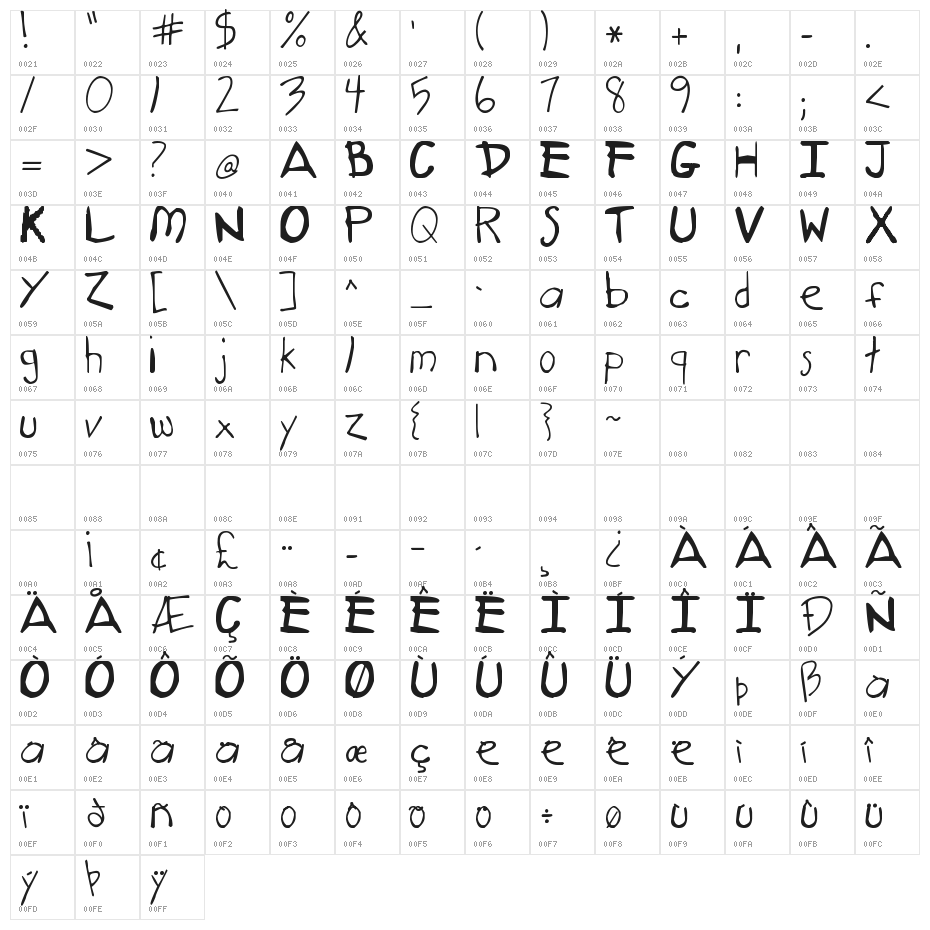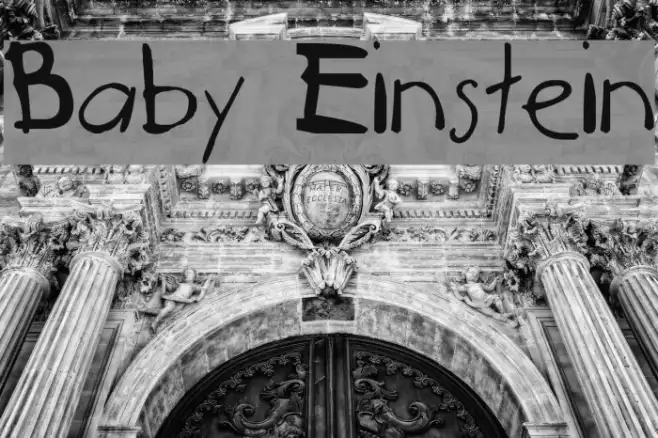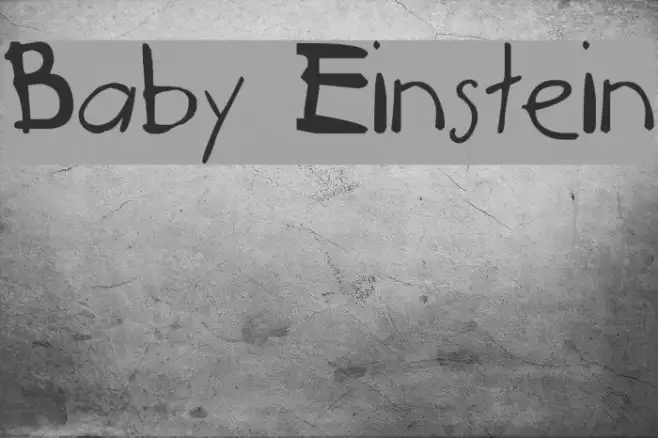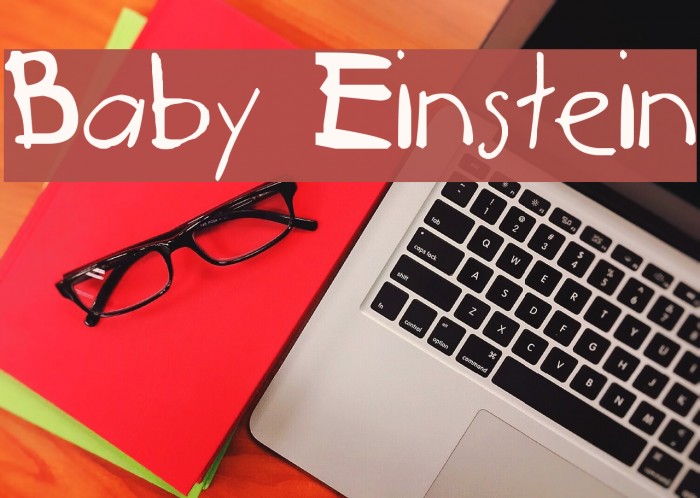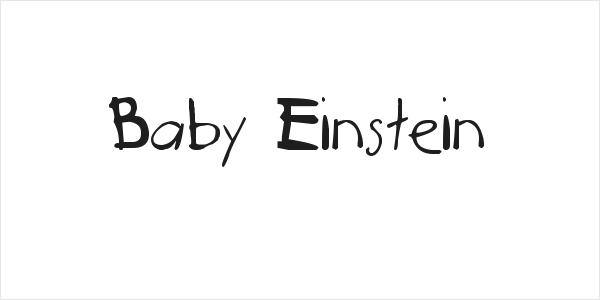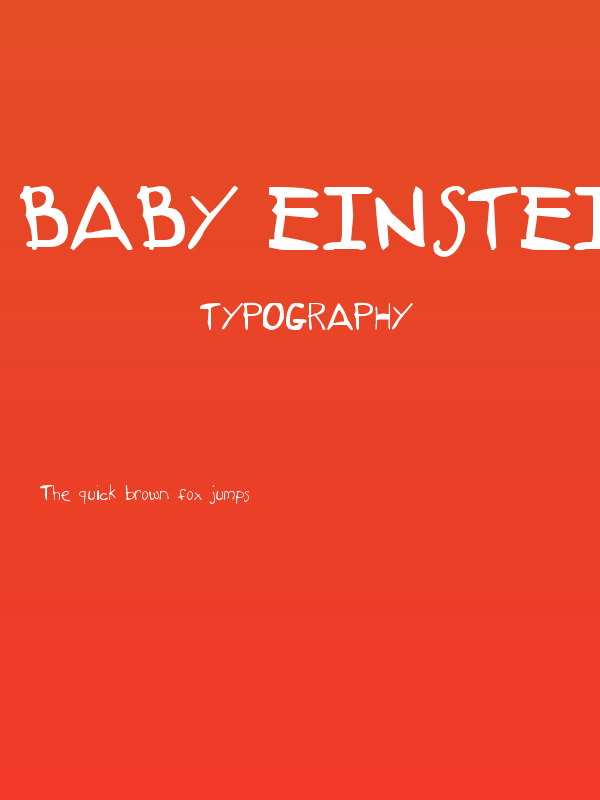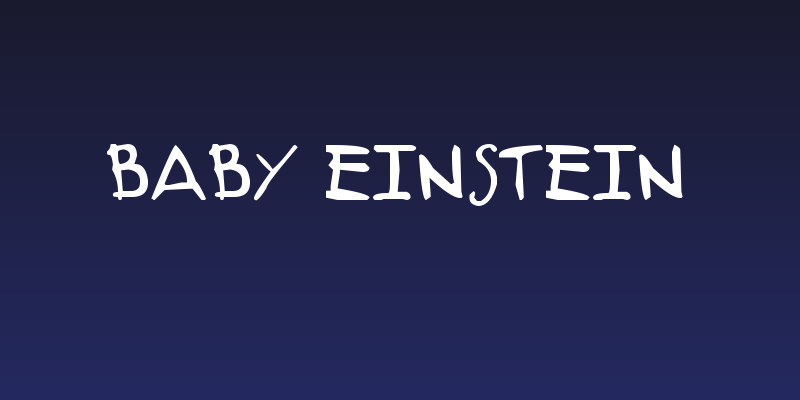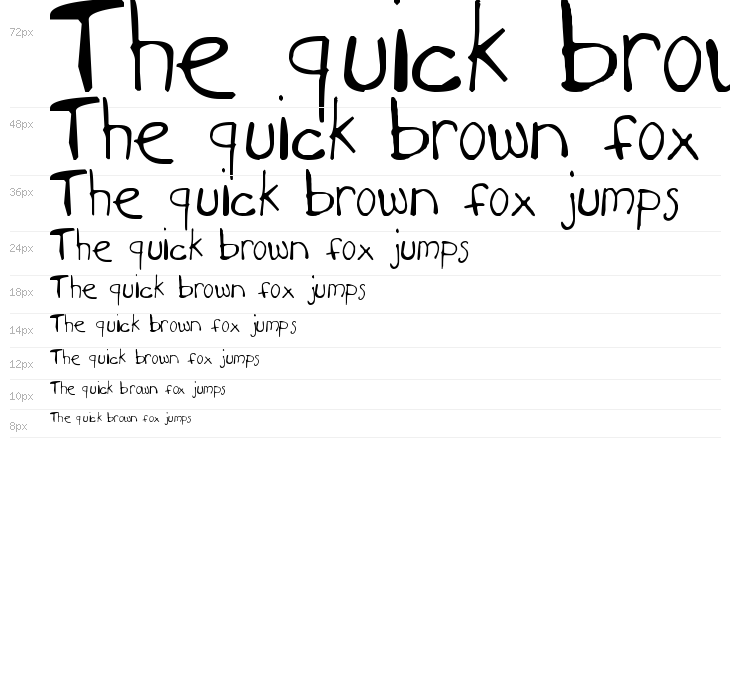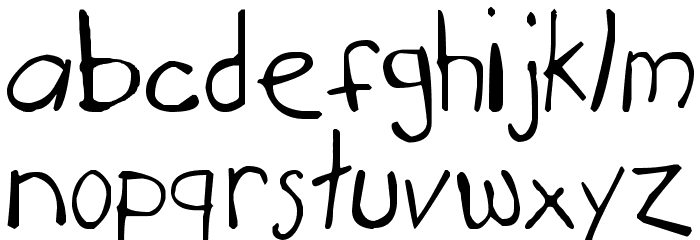
Baby Einstein Font
Baby Einstein Description
This playful and whimsical font features a hand-drawn, childlike style that exudes a sense of fun and creativity. The letters are irregular and slightly tilted, giving an informal and casual appearance. The strokes are uneven, with varying thickness that adds to the font's charm and uniqueness. The uppercase and lowercase letters maintain a consistent style, while the numerals and special characters complement the overall design. This font is perfect for projects that aim to capture a youthful and energetic vibe, making it suitable for children's books, educational materials, and playful branding.
| Proposed Projects | Ideal for children's books, educational materials, playful branding, and creative projects. |